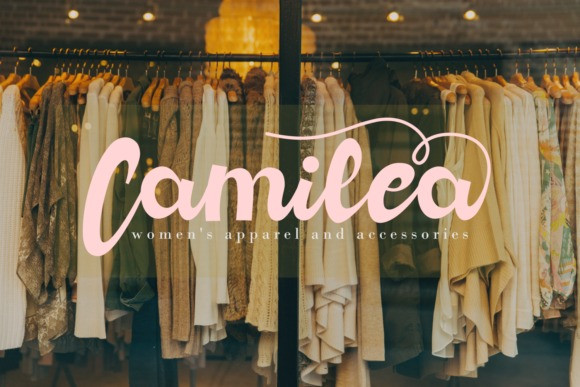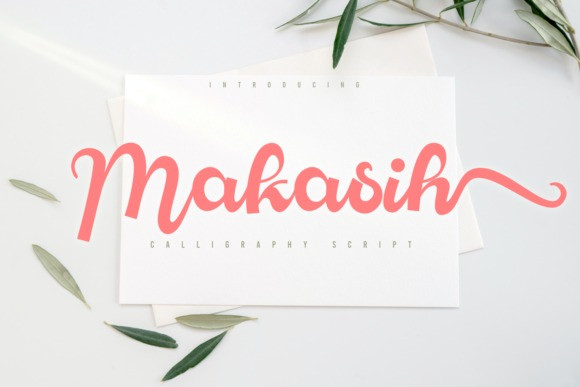
Makasih Script Font
Makasih Script Font, feels equally charming and elegant. It looks lovely on wedding invitations, thank you cards, quotes, greeting cards, logos, business cards and every other design which needs a customized touch.